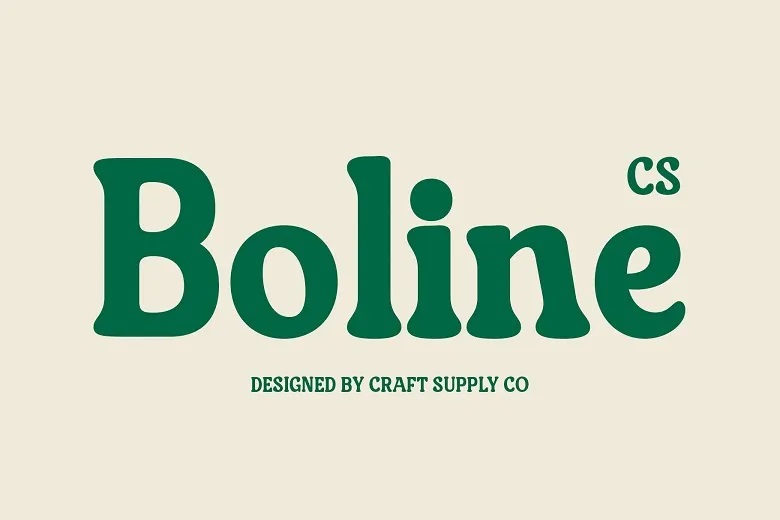
CS Boline Font
CS Boline is a rounded retro serif font similar to the fonts used in the 90s due to its rounded and thick shapes of letters. This particular font is somewhat edgy and very forceful and has an aesthetic flavor that can definitely assist you to set the environment of the century in past.
CS Boline Serif Font